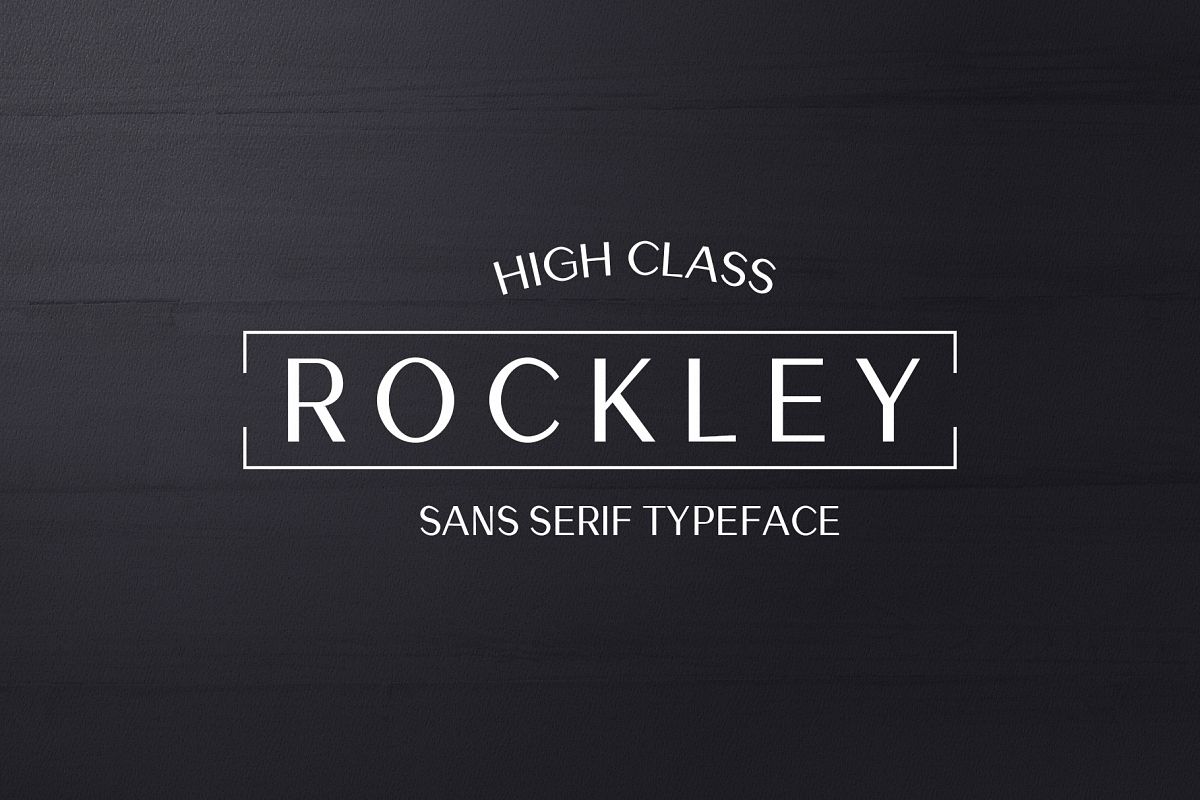
Rockley Sans Serif Font Family
Rockley Sans Serif Font Family is a set of 10 weights. It is good for making creative templates and stationary. Rockley typeface suits best for modern / clean designs, logos, headlines, banners and templates etc.It looks gorgeous in all caps with a wide-set spacing if you want to try a classy look, or beautiful on its own in capital and lowercase letters for something completely timeless.Included Features:
• Regular, Light, Outline Bold, Black and Italics Weight
• Extras: Uppercase Multilingual Letters, Lowercase Multilingual Letters, Numbers & Punctuation + Alternatives.
Highlights
• Rockley is a highly versatile Font Family Pack.
• Includes 10 weights
• The perfect choice for Modern, Fashion & Magazine Titles.
• Great for use on quotes, short phrases, magazines, logotypes and all sorts of advertising.